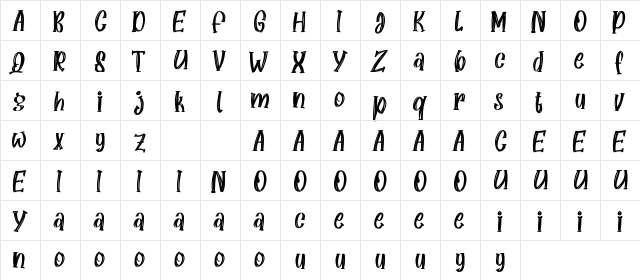
Kids Way Demo Regular
Design Context for Kids Way Demo Typeface
Kids Way Demo has an approachable, lighthearted character — its loose, expressive forms are well-suited to children's content, casual branding, and fun-first design.
Font Pairing: Pairs well with a rounded or humanist sans for body copy, maintaining the friendly tone without relying on Kids Way Demo to carry extended reading.
Pro Tip: Avoid using Kids Way Demo for long passages of text — it works best for headlines, labels, and short calls to action.